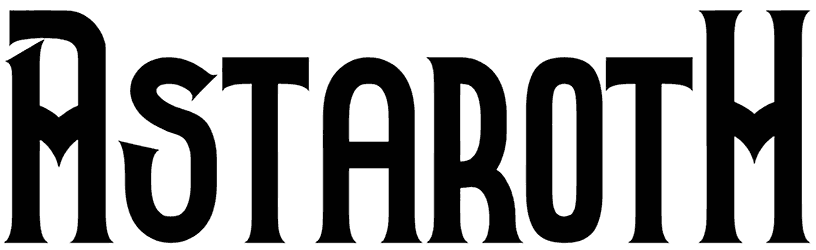
Astaroth Font
Astaroth is a modern gothic font; its bold, confident, sharp serif edges look powerful. The mix of rounded and pointy styles of this contemporized black letter font delivers a mysterious and dramatic feel. Utilize it for typography that is enchanting!
Astaroth doesn’t contain lower case letters; instead, it offers 2 sets of capitalized characters which means it fits well in many different places. Give this font, and the letterforms included a try in books, movies, branding, logos, and posters.